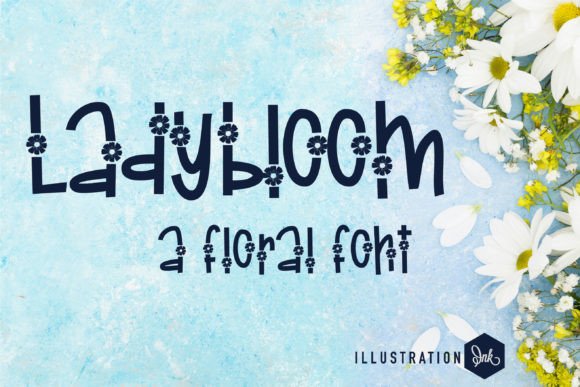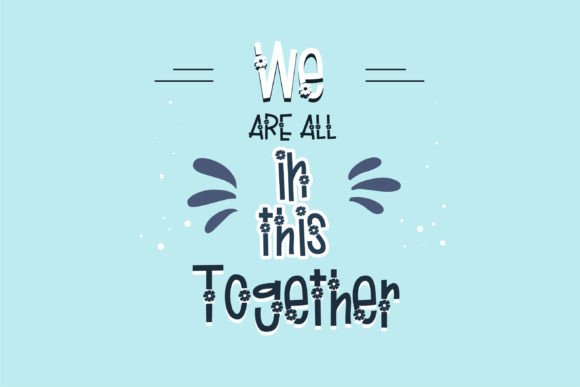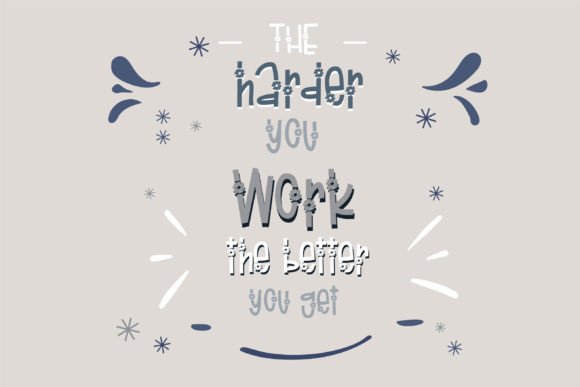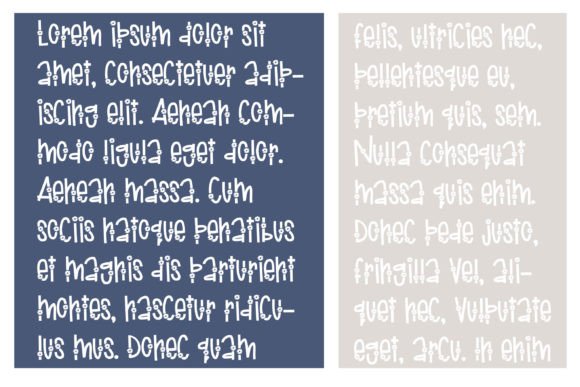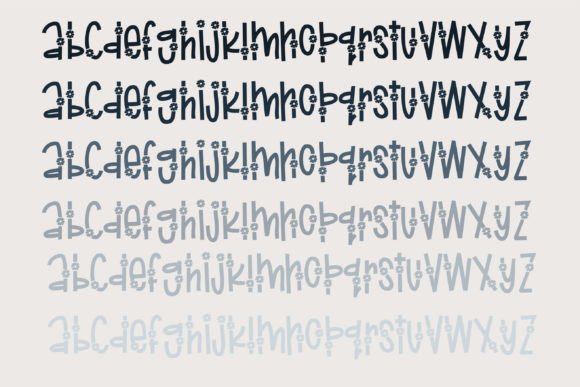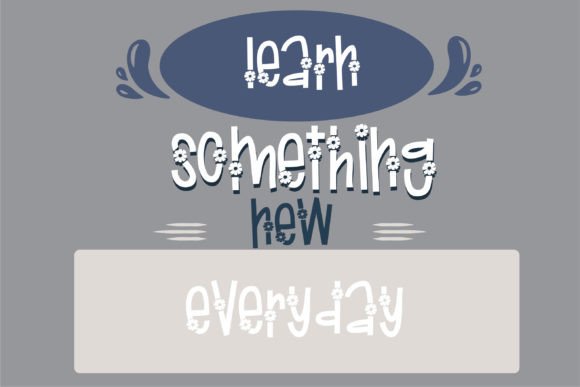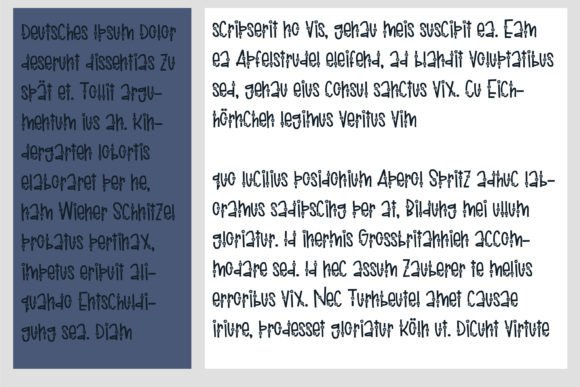
Ladybloom Font
About Ladybloom Font
Ladybloom is a charming and adorable handwritten font that brings a delightful touch to your projects with its unique daisy-like blooms on each letter. This font is not just a typeface; it’s a creative asset that can transform your designs into whimsical and eye-catching creations.
The incorporation of daisy blooms into Ladybloom’s lettering adds a playful and nature-inspired element. The use of floral details enhances the font’s overall appeal, making it particularly well-suited for designs related to weddings, celebrations, or any content that benefits from a touch of sweetness.
Ladybloom’s handwritten style contributes to its friendly and approachable character. Handwritten fonts are known for their authenticity and warmth, making them perfect for projects that aim to establish a personal and engaging connection with the audience.
The versatility of Ladybloom allows it to be applied across various design applications. Whether you’re working on wedding invitations, thank you cards, quotes, greeting cards, logos, business cards, or any other creative project, Ladybloom can infuse a sense of charm and playfulness into your text.
The floral details on each letter make Ladybloom stand out, creating a distinctive and memorable look. This uniqueness is valuable for making your designs not only visually appealing but also memorable and recognizable.
Ladybloom is more than just a font; it’s a design element that elevates your projects with a touch of whimsy and beauty. By incorporating Ladybloom into your designs, you’re not just adding letters; you’re infusing your work with a sense of joy and creativity.
In summary, Ladybloom is a font that goes beyond conventional typefaces, offering a delightful and unique touch to your designs. Let Ladybloom be the blooming star of your creative projects, bringing a sense of playfulness and charm to every letter and making your designs truly special and memorable.